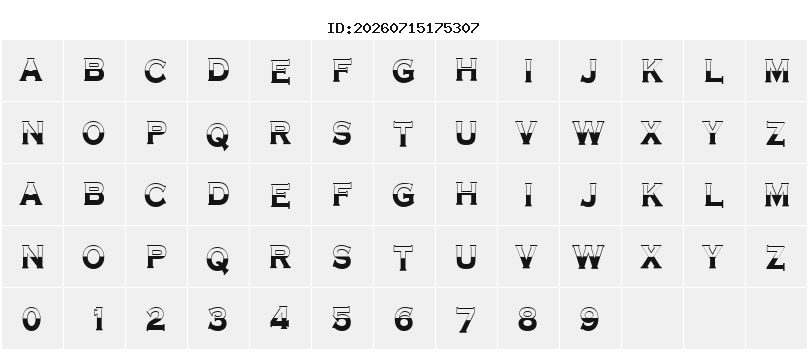
a_CopperGothTitulB&W Preview
• Font Name: a_CopperGothTitulB&W
• Full Font Name: a_CopperGothTitulB&W Bold
About a_CopperGothTitulB&W.ttf
a_CopperGothTitulB&W.ttf is a modern, elegant sans-serif font designed for ultimate readability and visual harmony. Perfect for branding, headlines, web design, and print materials.